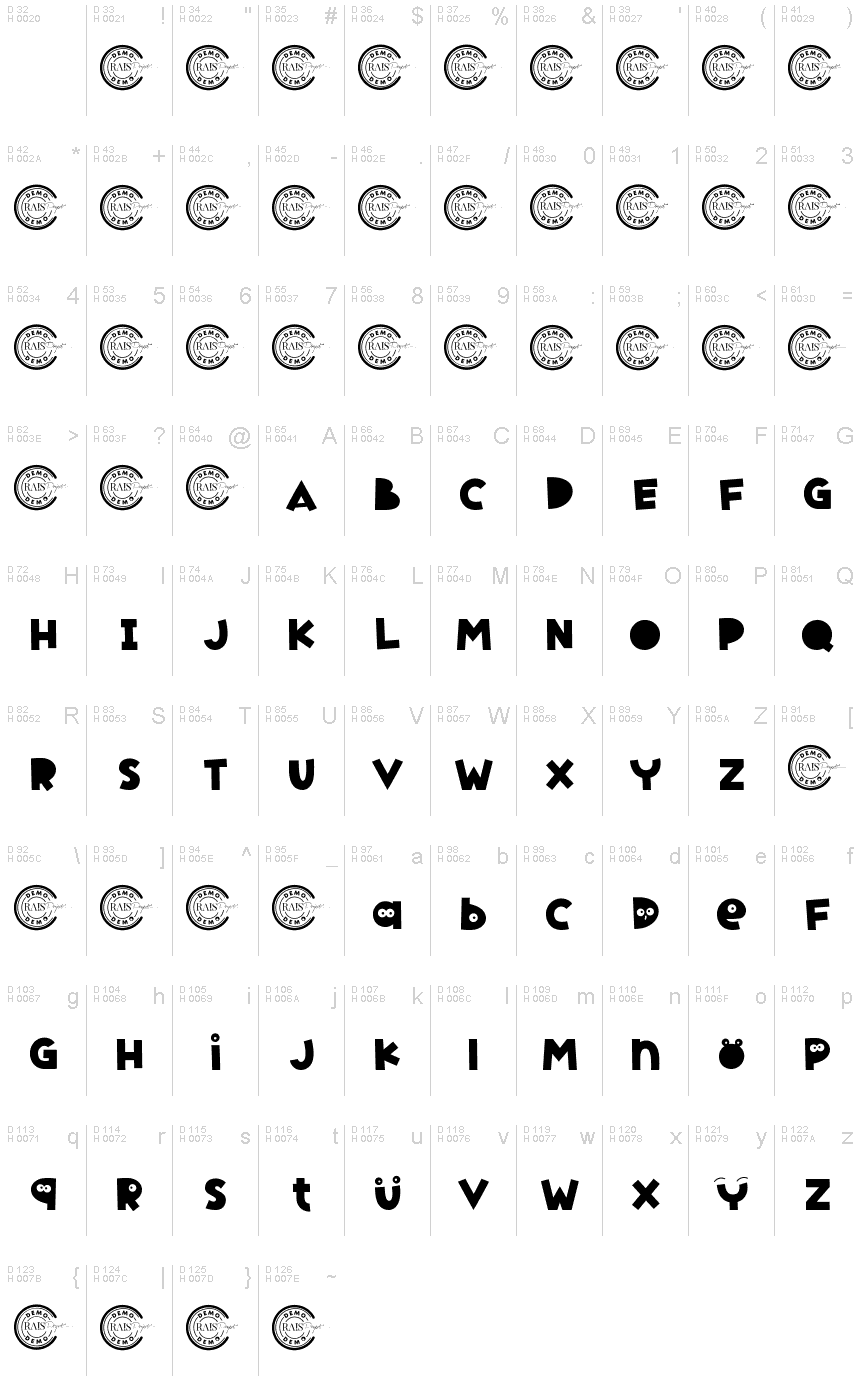
Comedy Style, designed by RaisProject, is a bold and playful display font that brings a touch of humor to any project.
Its semi-expanded width adds a sense of dynamism, making it perfect for eye-catching headlines, logos, and branding materials. With its cartoon-like style, this font is ideal for children's books, animated films, comic strips, and even comedy clubs' promotional materials.